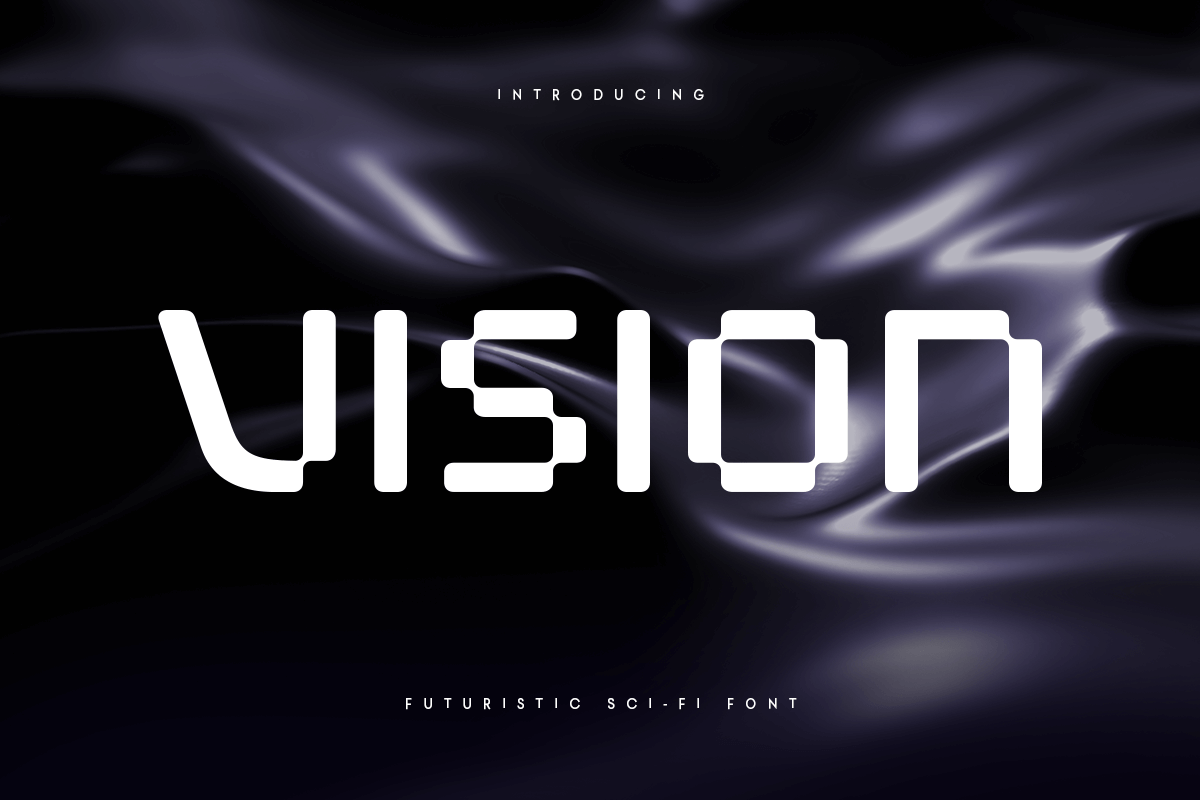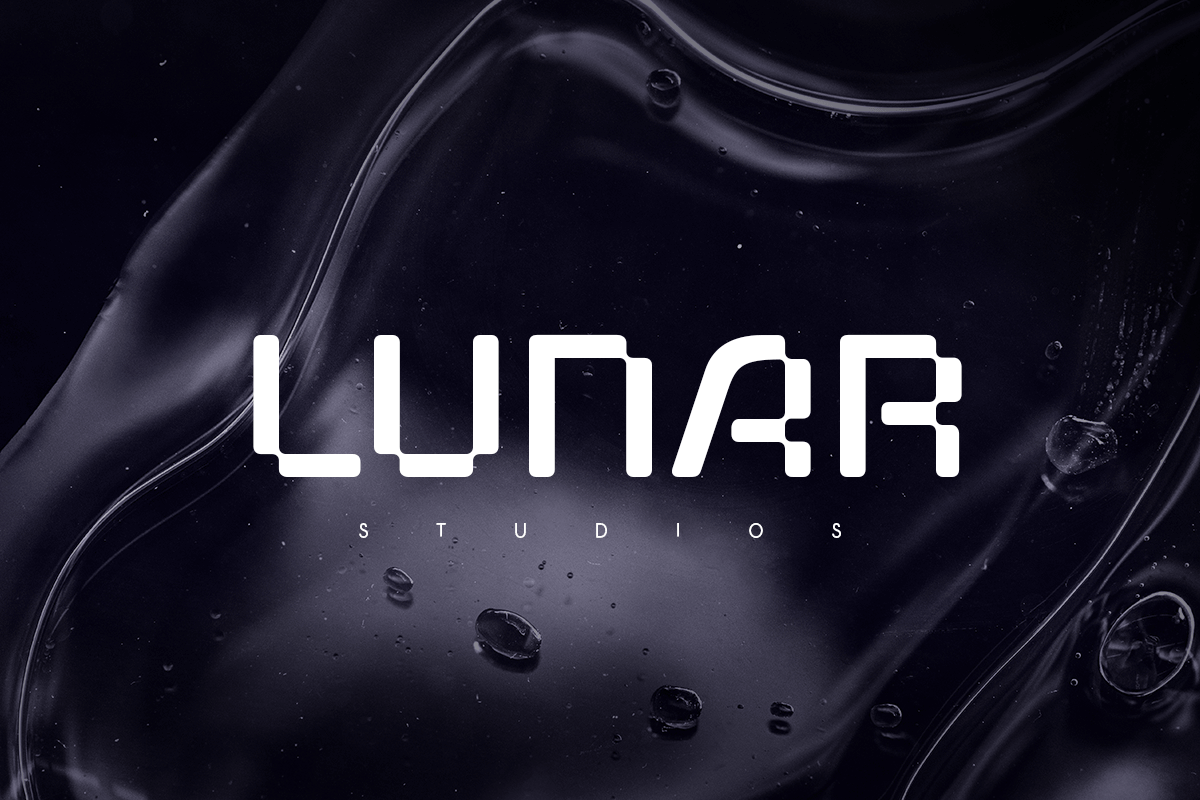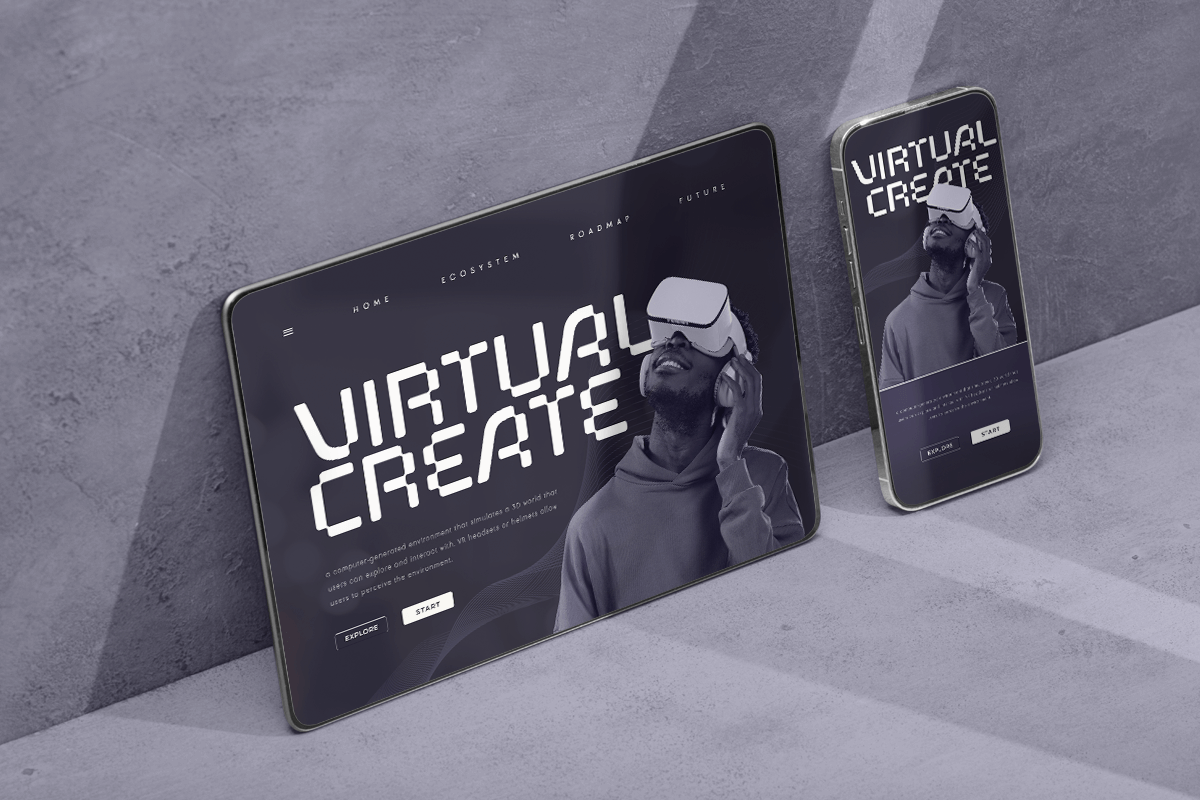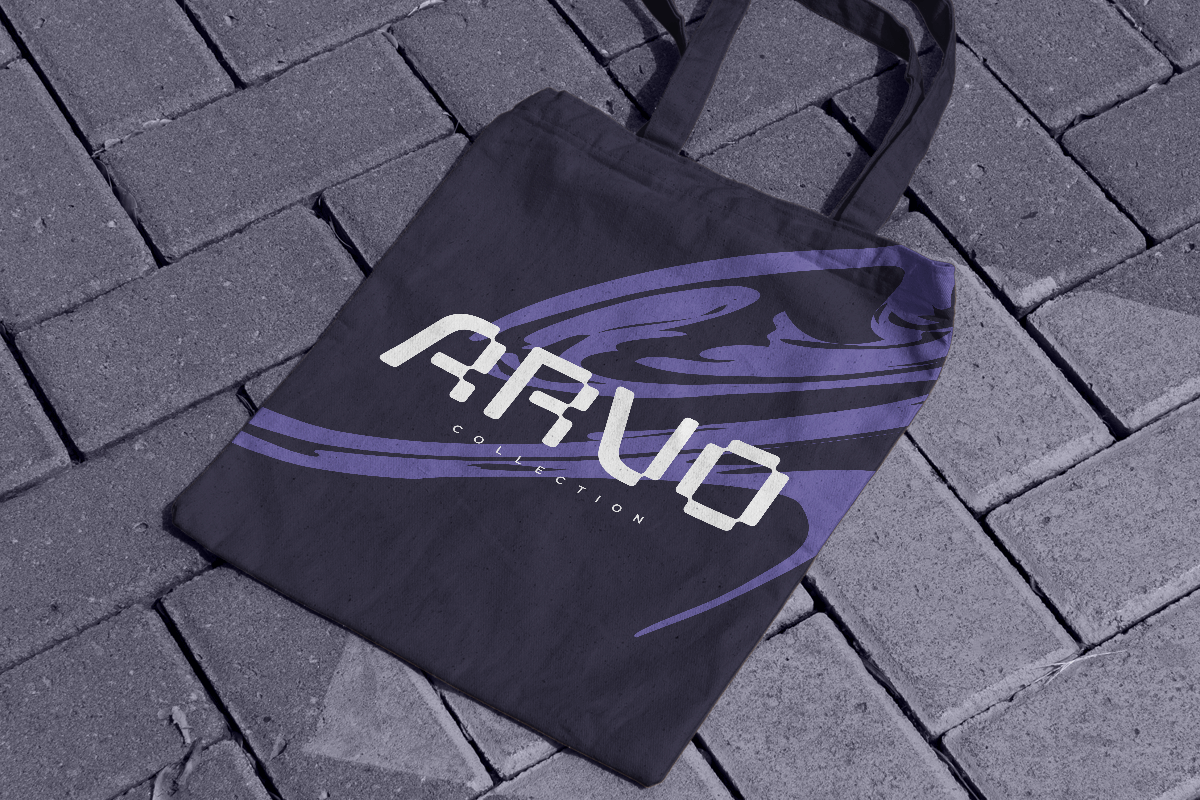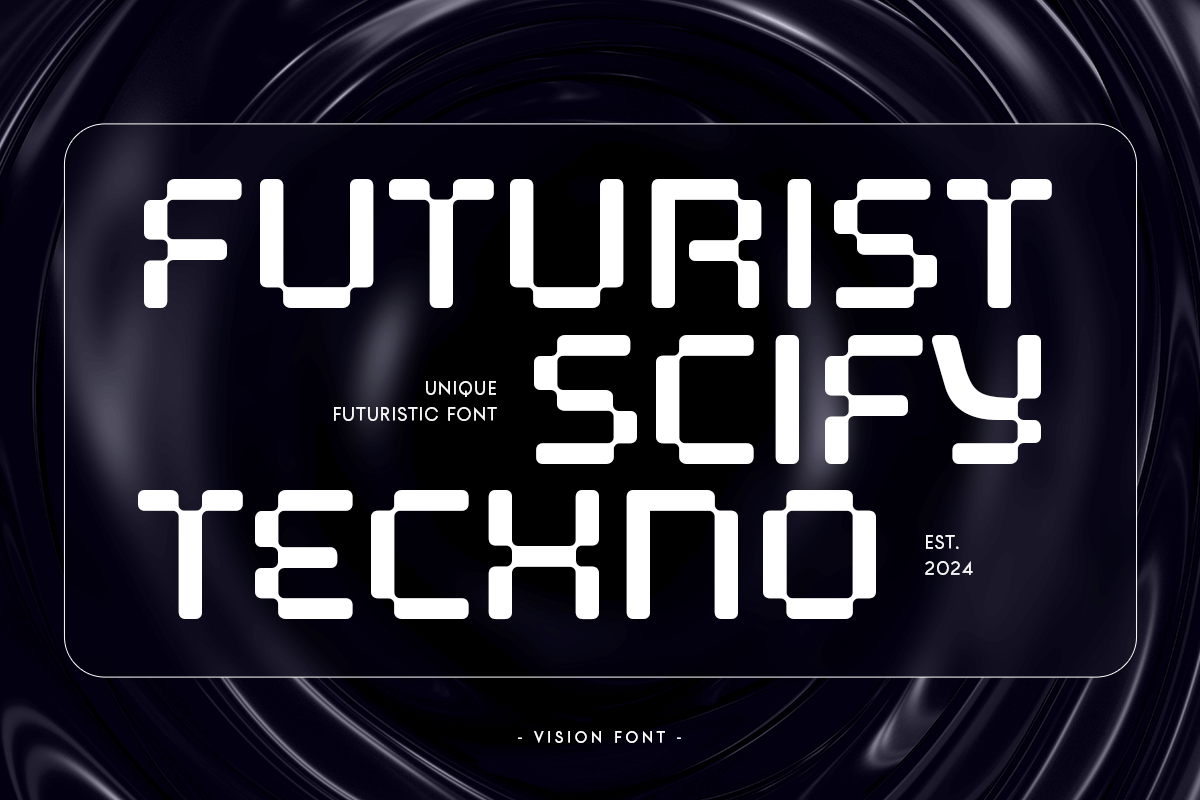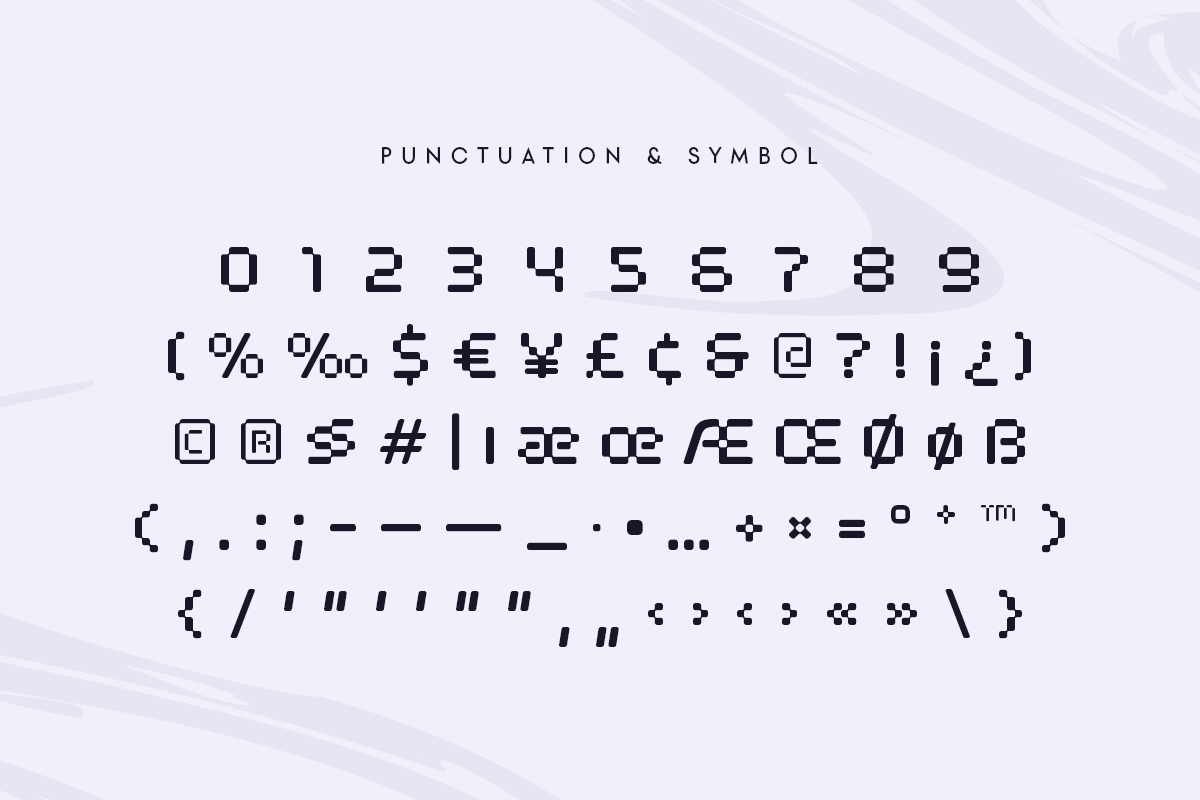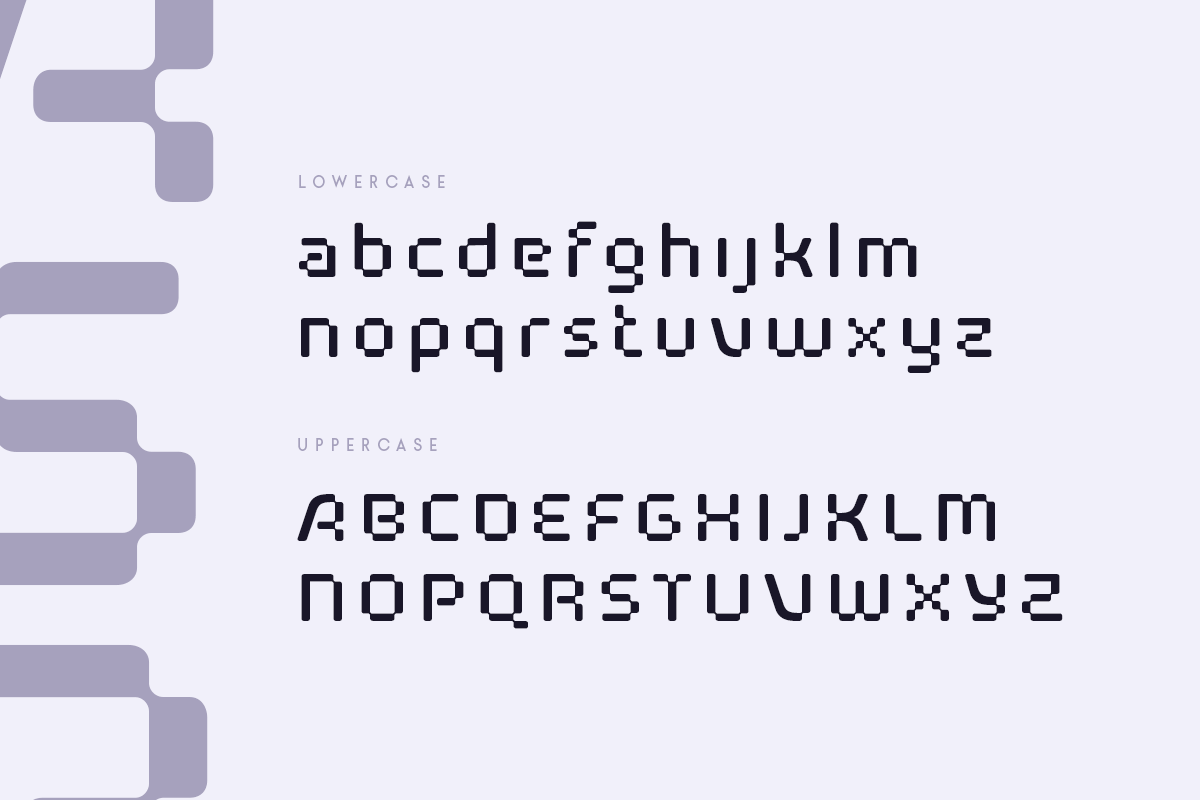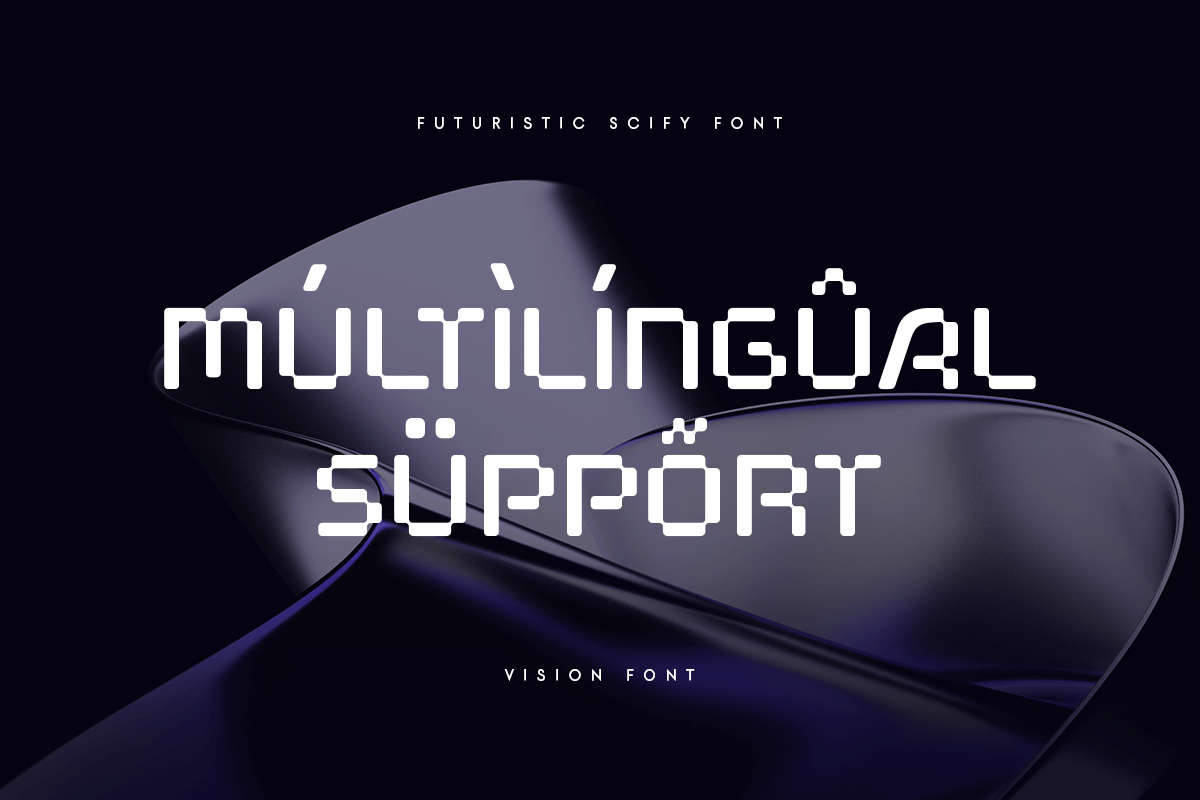
Vision
-Futuristic Scifi FontType Tester
Vision is a Futuristic Modern Sport Sci-fi font that created special for Sci-fi, Modern, Technology and more stand out typography needs, with extra perfect styles that make your design more Futuristic. It's so perfect to add your style and headline overview for sport, technology, actions, and Sci-fi theme. And specially for this font, we crafted for bold style and modern feels so enjoy to create any project that will show your main idea out.
Futuristic characters prepared to get creative alternatives in Technology theme
Preview as a inspirations that you can do with Vision font